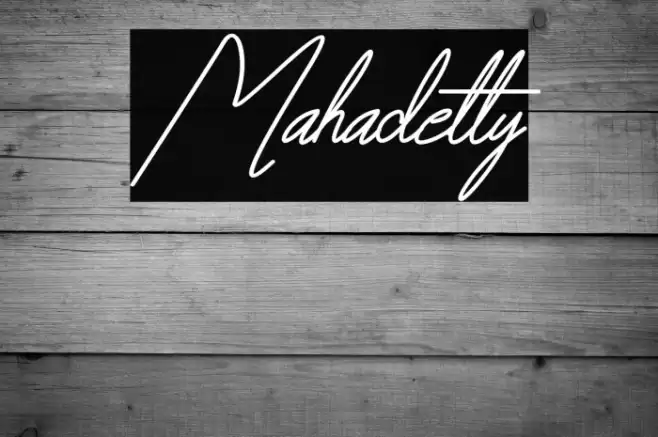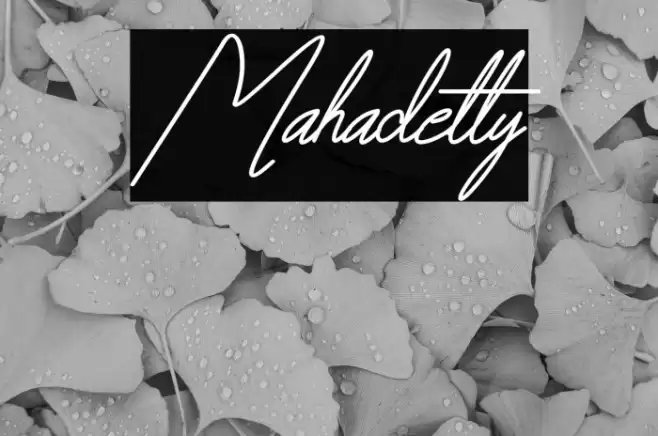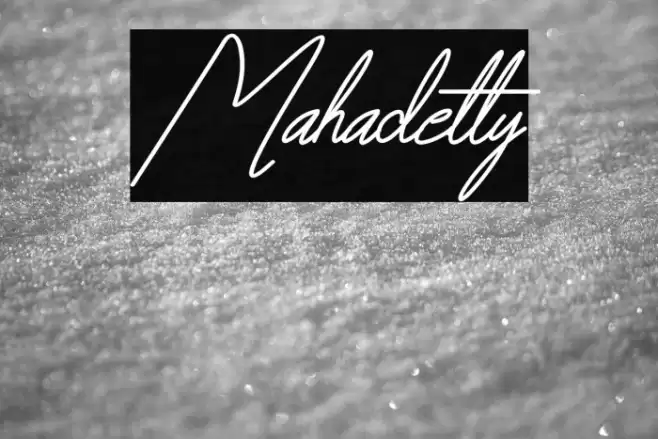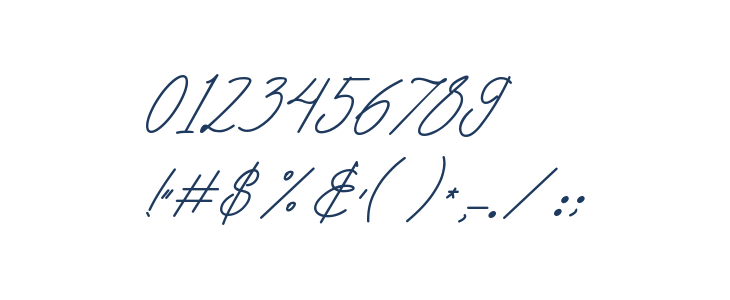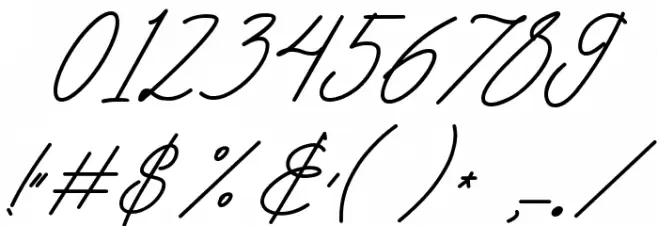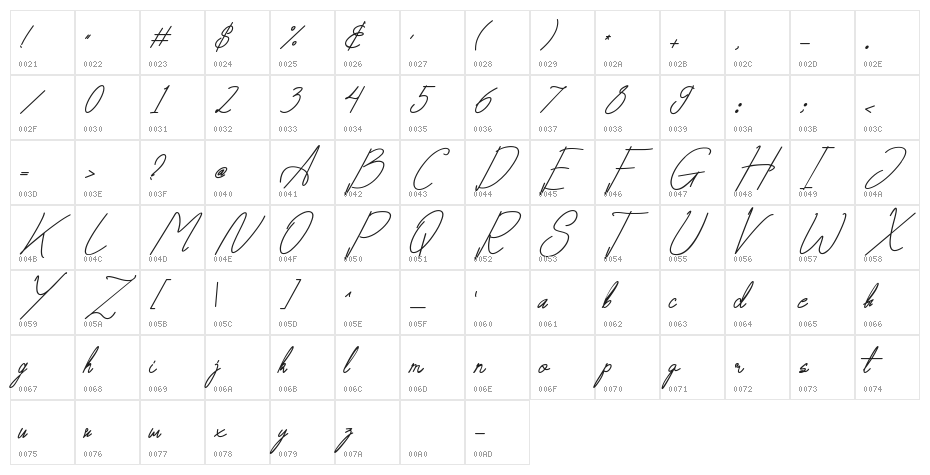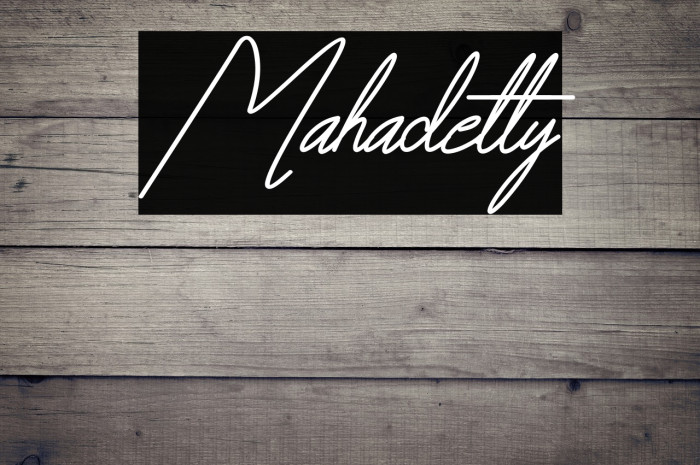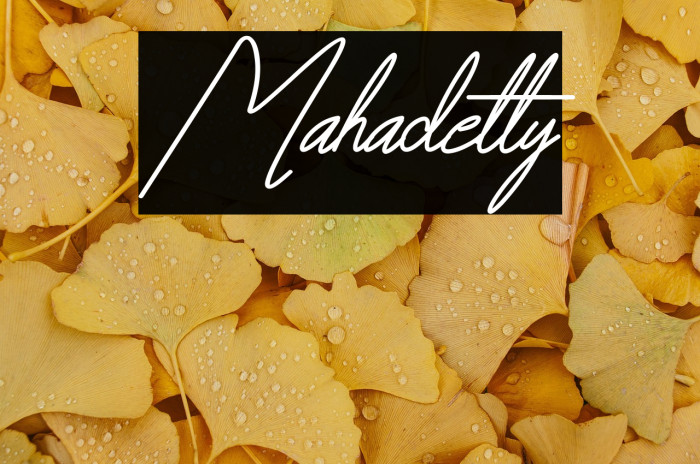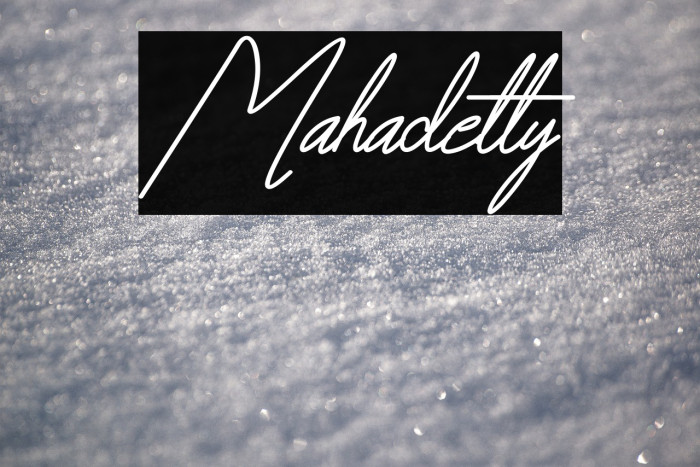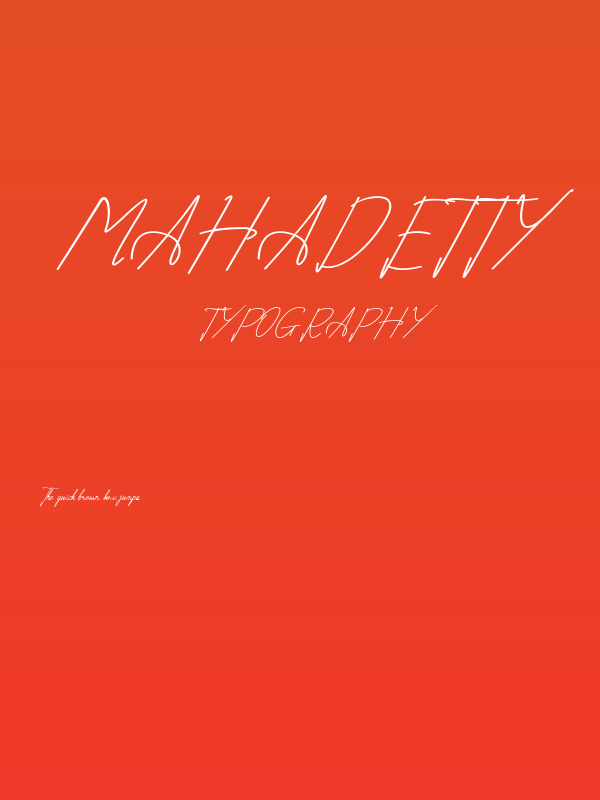
Mahadetty Font
Mahadetty Description
This font features a handwritten, cursive style with elegant, flowing lines. The uppercase letters are slightly slanted and maintain a consistent height, giving a sense of uniformity and balance. The lowercase letters are more varied in height, with some characters like 'g', 'j', and 'y' having distinctive descenders that add to the font's dynamic appearance. The numbers are clear and legible, maintaining the cursive style without sacrificing readability. Special characters are well-integrated, matching the overall aesthetic. This font exudes a personal and artistic touch, making it suitable for creative and expressive designs.
A cursive, handwritten font with elegant, flowing lines and a personal touch from Regular fonts.
- Proposed Projects: Ideal for wedding invitations, personal branding, artistic projects, and greeting cards.
- Use Case: Logos, Invitations, Artistic projects